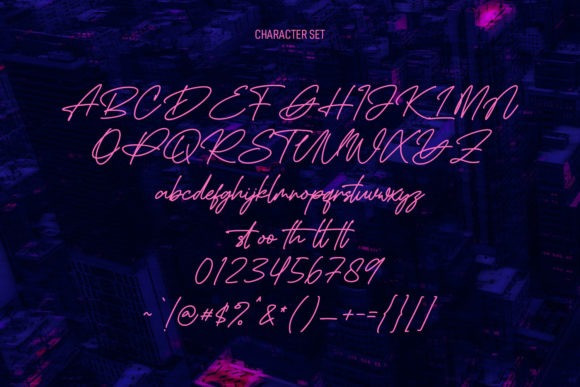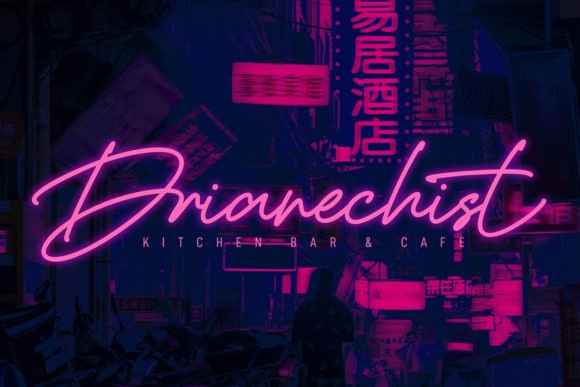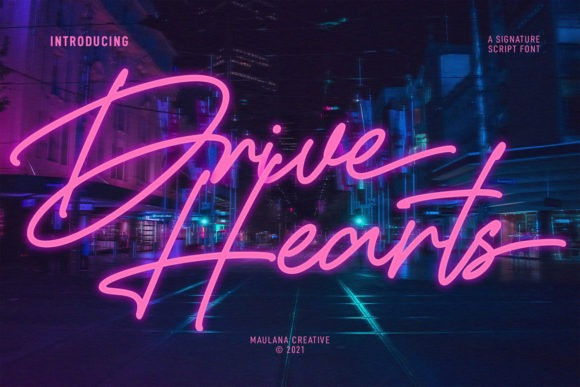
Drive Hearts Font
Drive Hearts Handwritten Font is a chic, refined script font that emanates sophistication and elegance. Its stylish alternates and ligatures make this font the perfect match for any project.